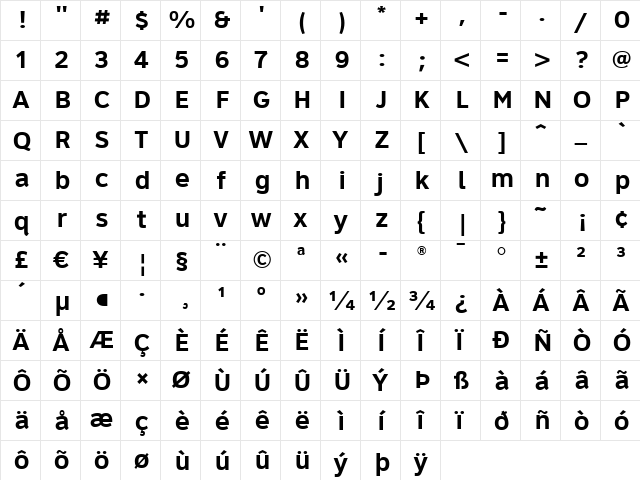
ClearviewHwy-6-B Regular
| Foundry | Terminal Design, Inc |
| Designer | James Montalbano, Donald Meeker, Chris O'Hara |
Design Context for ClearviewHwy-6-B Typeface
ClearviewHwy-6-B takes a measured approach to typography — its balanced proportions and neutral character make it a reliable workhorse for both digital and print work.
Pro Tip: Use ClearviewHwy-6-B in both headline and body roles to test its range before committing to a single application.